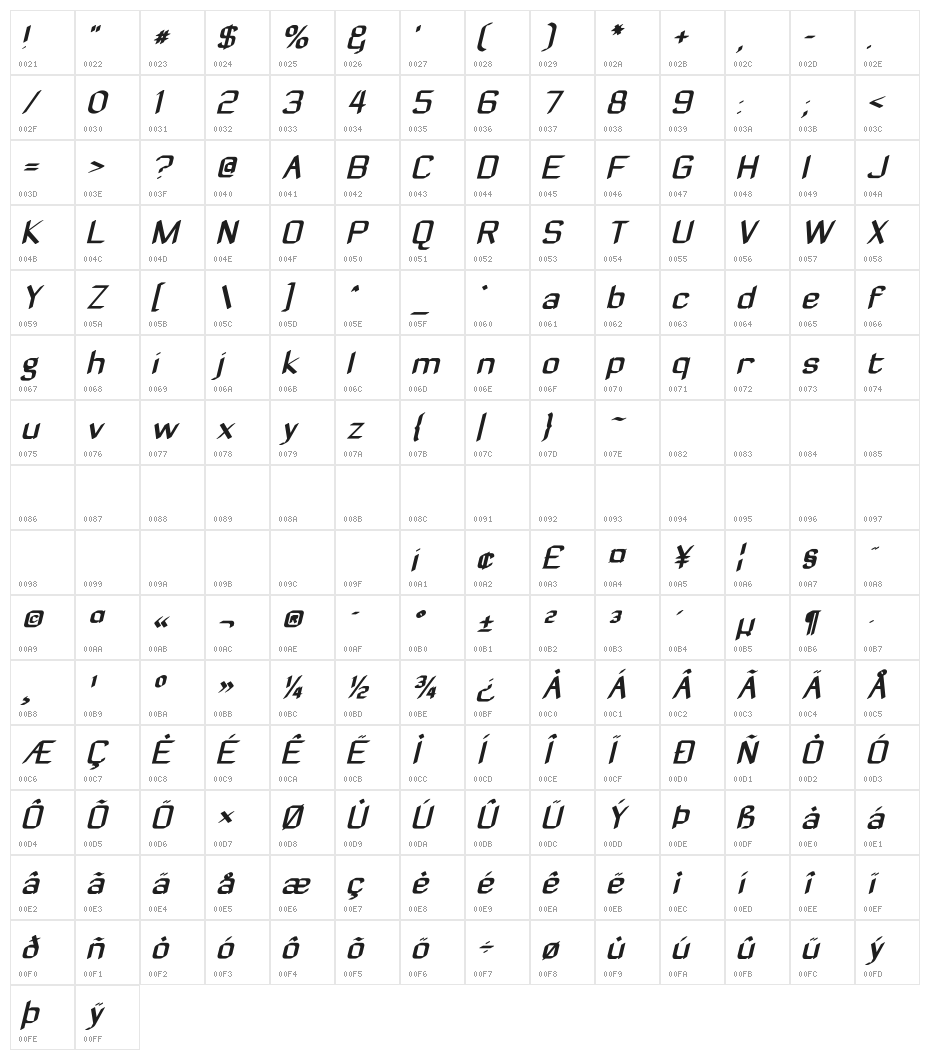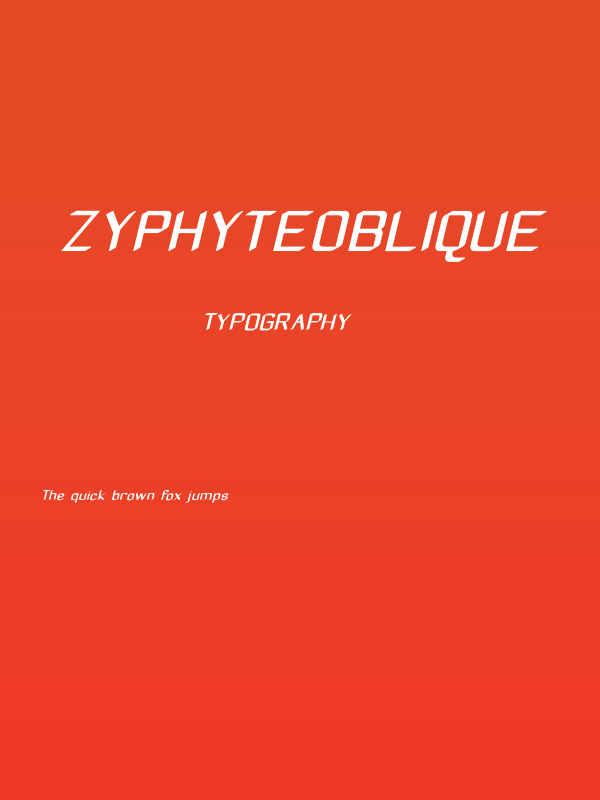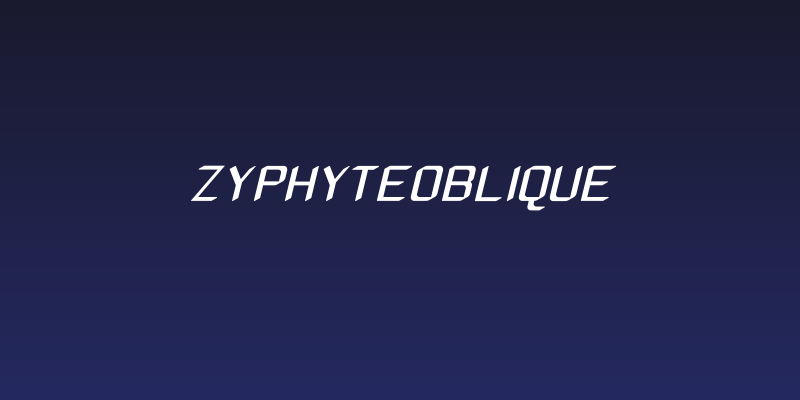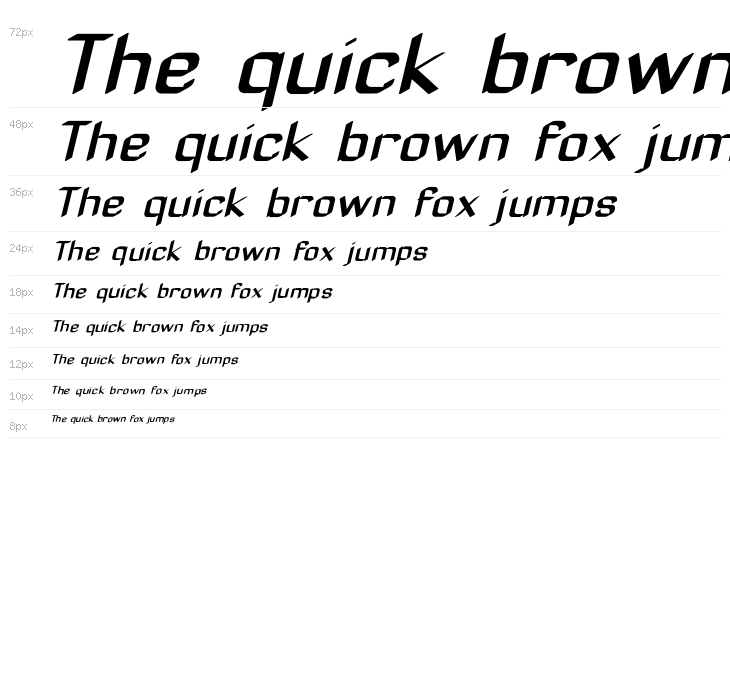
ZyphyteOblique Font
ZyphyteOblique Description
This font features an oblique style with a modern and dynamic appearance. The characters are slightly slanted, giving a sense of motion and speed. The strokes are consistent in thickness, providing a uniform look across all characters. The uppercase letters are bold and assertive, while the lowercase letters maintain a similar style with a slightly softer touch. The numerals are clear and easy to read, matching the overall aesthetic of the font. Special characters are well-defined, adding versatility for various uses.
| Use Case | Logos, Headlines, Advertising |
| Proposed Projects | Ideal for branding, sports team logos, automotive designs, and dynamic advertising materials. |